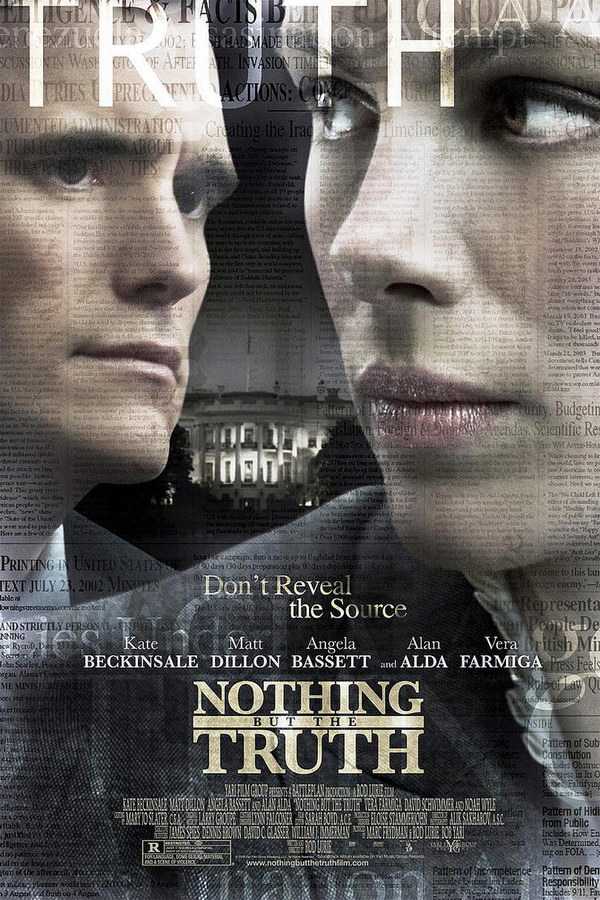
Nothing but the Truth Font
Fonts in UseNothing but the Truth is a political thriller film where a journalist's refusal to reveal her source leads to a high-stakes legal battle, testing the limits of freedom of the press and government secrets.